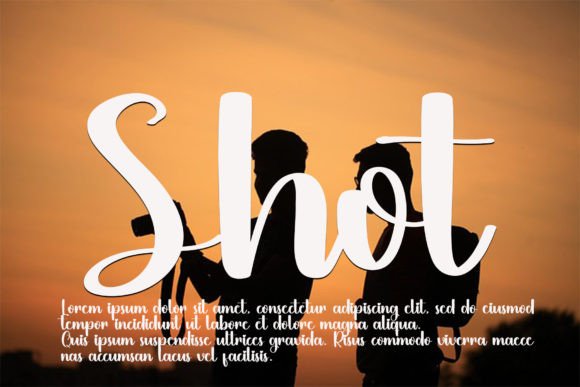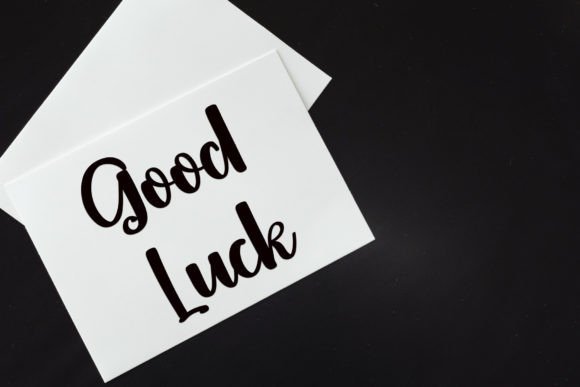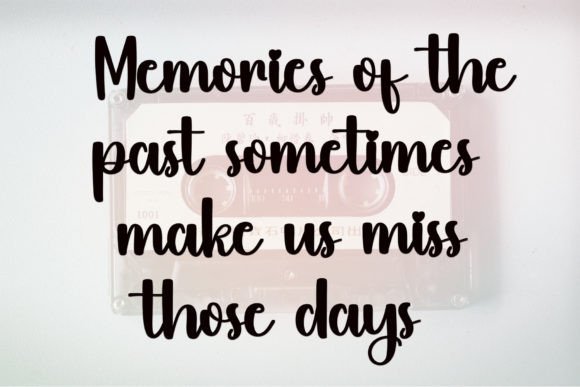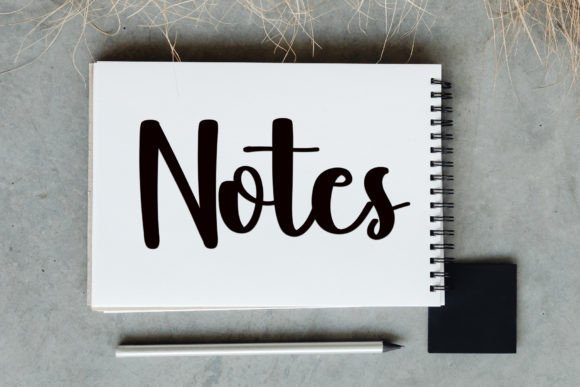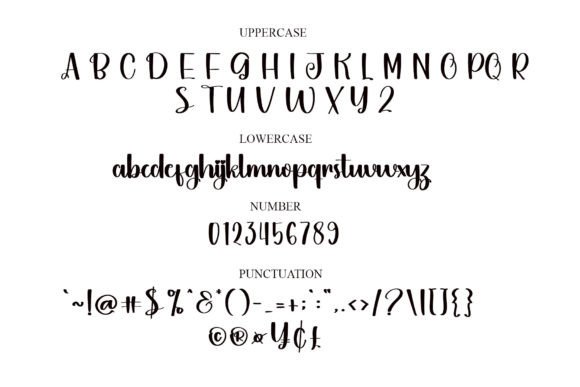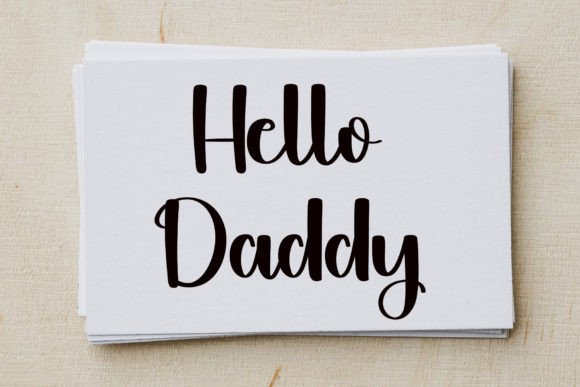
Introduction to Homing Font
Have you ever found yourself stuck in a creative rut, struggling to bring your vision to life? I know I have – we’ve all been there. But what if you had the perfect tool to unlock your full potential? For designers, the right font can be the difference between a good project and a great one. And that’s where the Homing Font comes in – a stylish handwritten font that’s sure to elevate your creative project to new heights.
With its contemporary atmosphere and impeccable form, inspired by timeless classic calligraphy, the Homing Font is a game-changer for any design resource. Whether you’re working on a high-quality brochure, a free download, or a digital design project, this font is the perfect addition to take your work to the next level. Its balanced and varied style makes it a versatile choice for any project, and its transparent background ensures seamless integration into your design.
Key Features of Homing Font
- High Quality Design: Homing Font is designed to provide a premium look and feel for your creative project.
- Unique Characteristics: Homing Font features a distinctive, modern design that can add a touch of sophistication to any creative project.
- Perfect for Various Designs: Whether you’re working on a logo, typography-based design, or any other creative project, Homing Font is an excellent choice.
Honest Review: Homing Font
As a designer, I’m always on the lookout for high-quality design resources to enhance my creative projects. Recently, I stumbled upon the Homing Font, and I’m excited to share my honest review.
- ✨ What works well: The Homing Font is a beautifully crafted typeface that offers a clean and modern aesthetic. It’s perfect for designers who need a versatile font for their projects.
- ✨ What works well: The font comes with a transparent background, making it easy to use in any design scenario. Whether you’re creating a logo, brochure, or website, this font is sure to impress.
- ⚠️ Limited customization options: While the font is beautiful, it’s not easily customizable, which may be a limitation for designers who want to add their own unique touch.
- ⚠️ Limited language support: The font only supports a limited number of languages, which may be a concern for designers who need to create content in multiple languages.
Overall, I’m impressed with the Homing Font. It’s a great addition to any designer’s toolkit, and it’s perfect for designers who want a high-quality font for their creative projects. With its clean design, free download, and transparent background, it’s a great resource to have in your arsenal.
Homing Font
Tips for Getting the Most Out of Homing Font
Experiment with different font sizes, colors, and styles to achieve the desired look.
Homing Font is ideal for:
• Branding and marketing materials
• Social media graphics
• Print designs
• Digital presentations